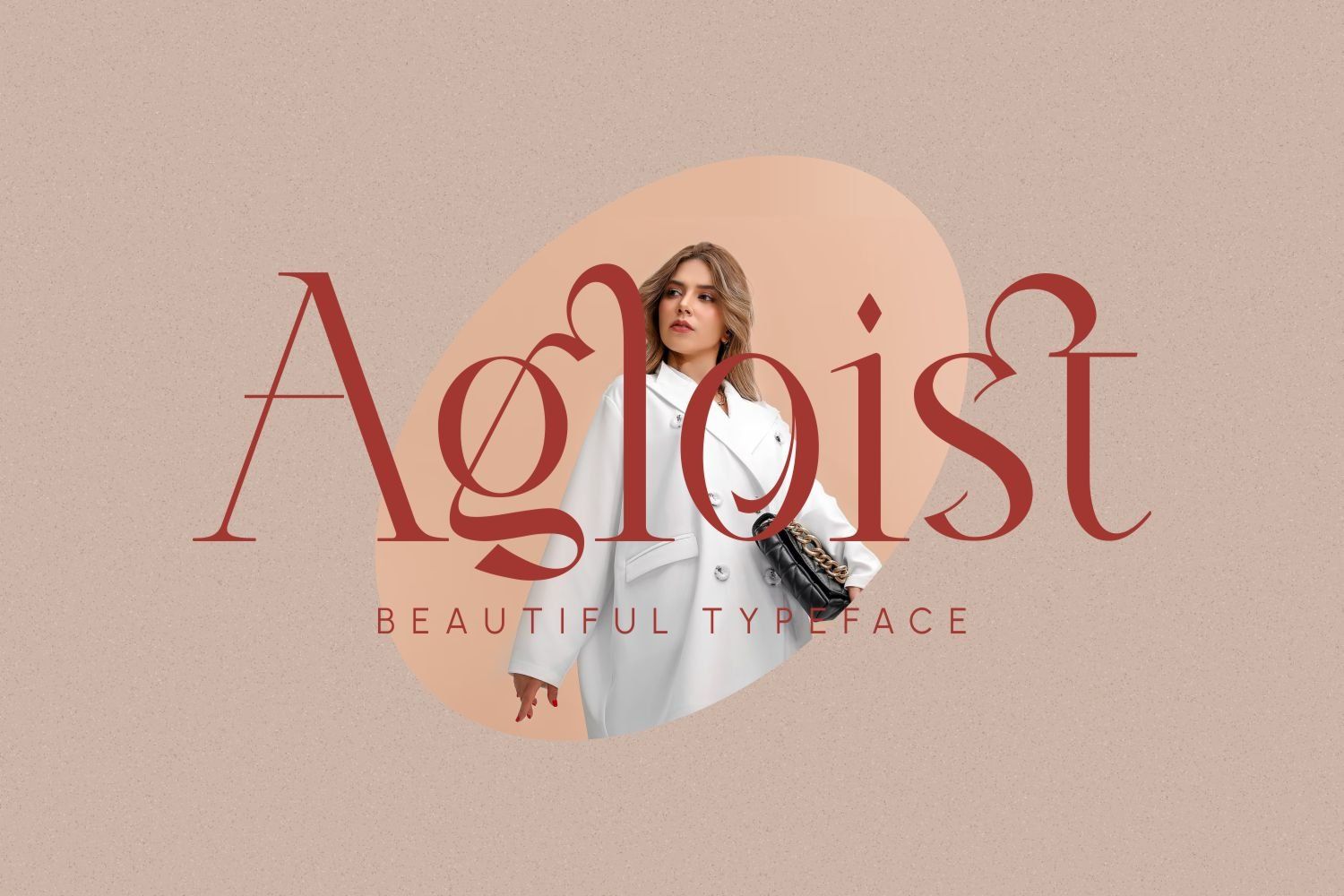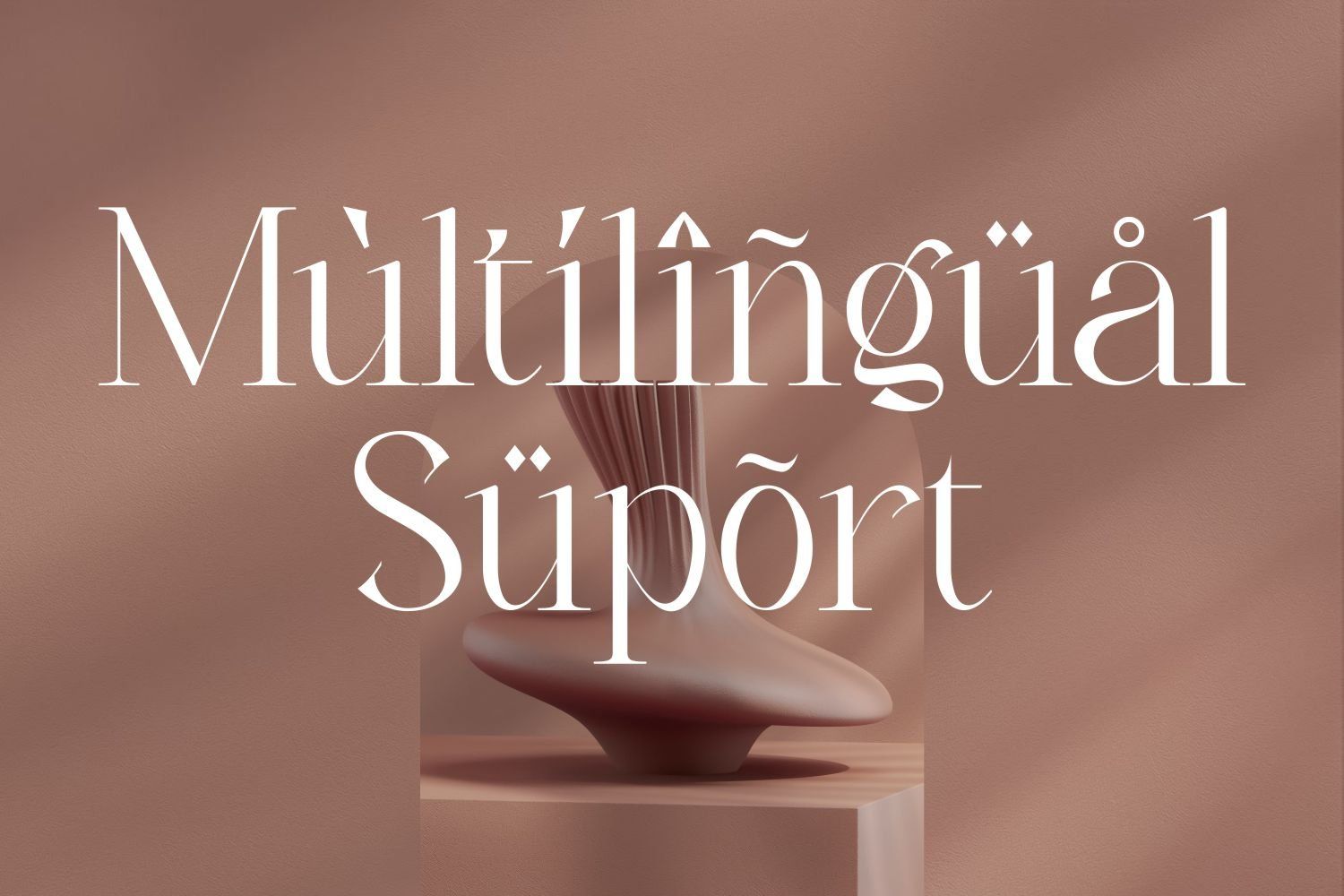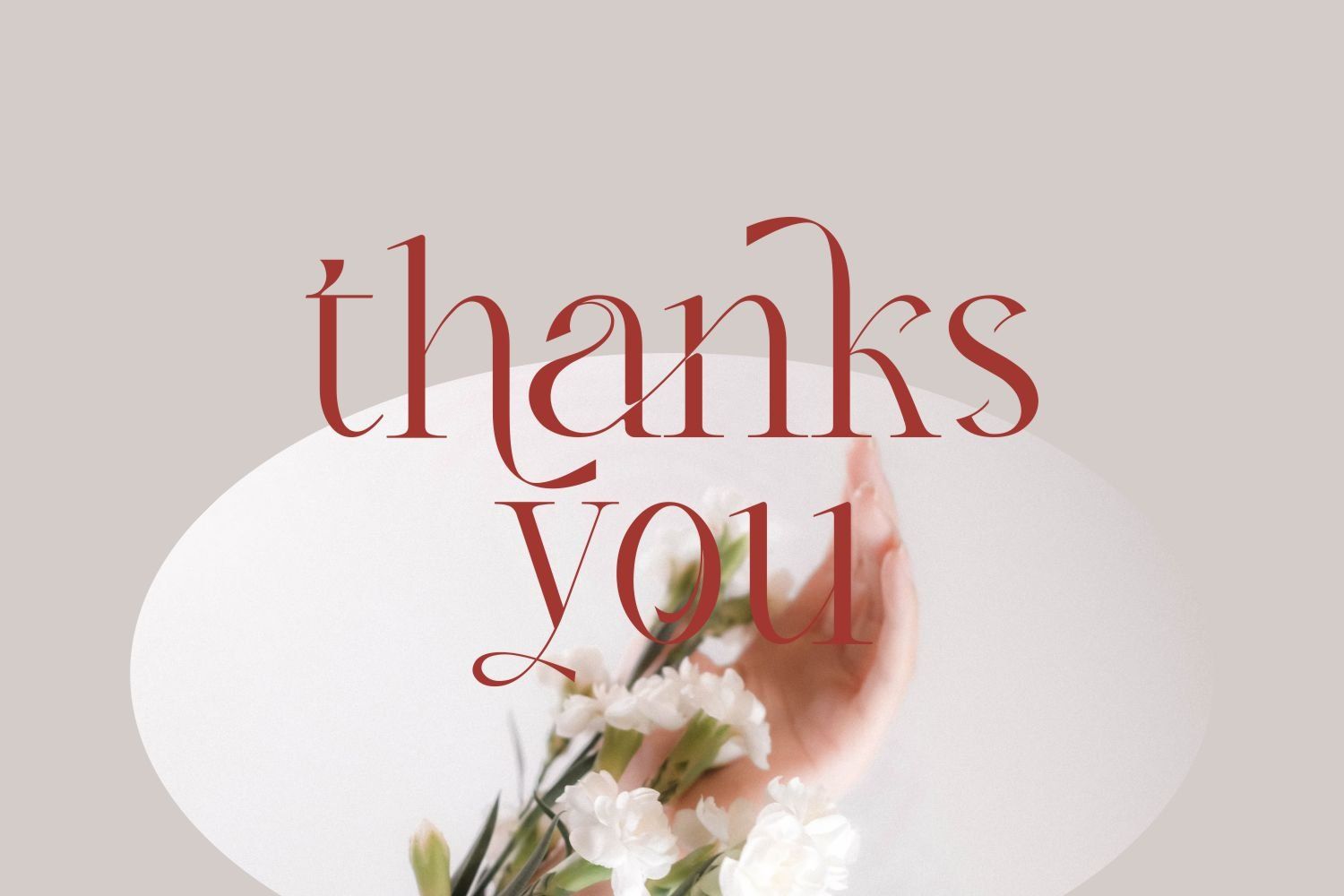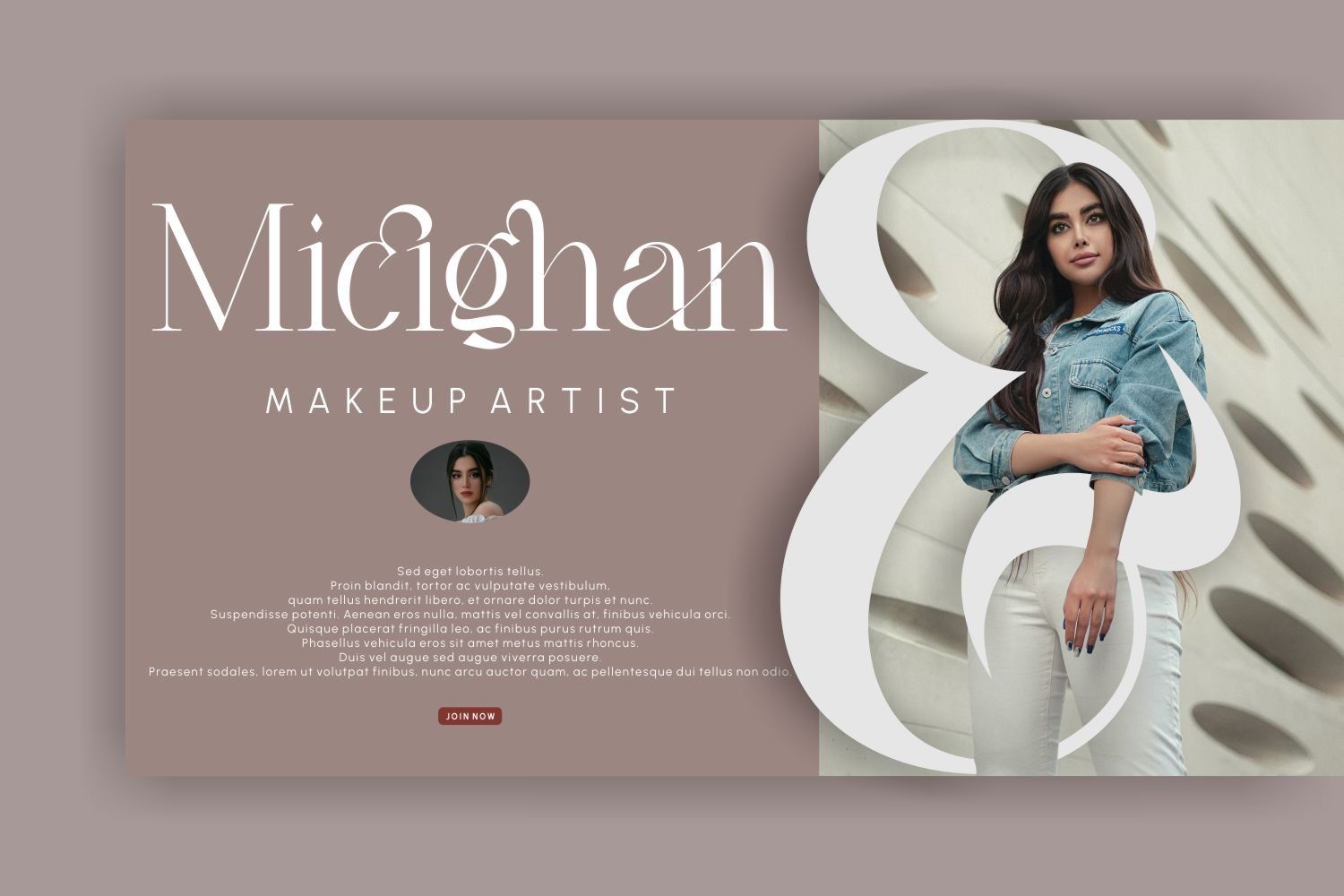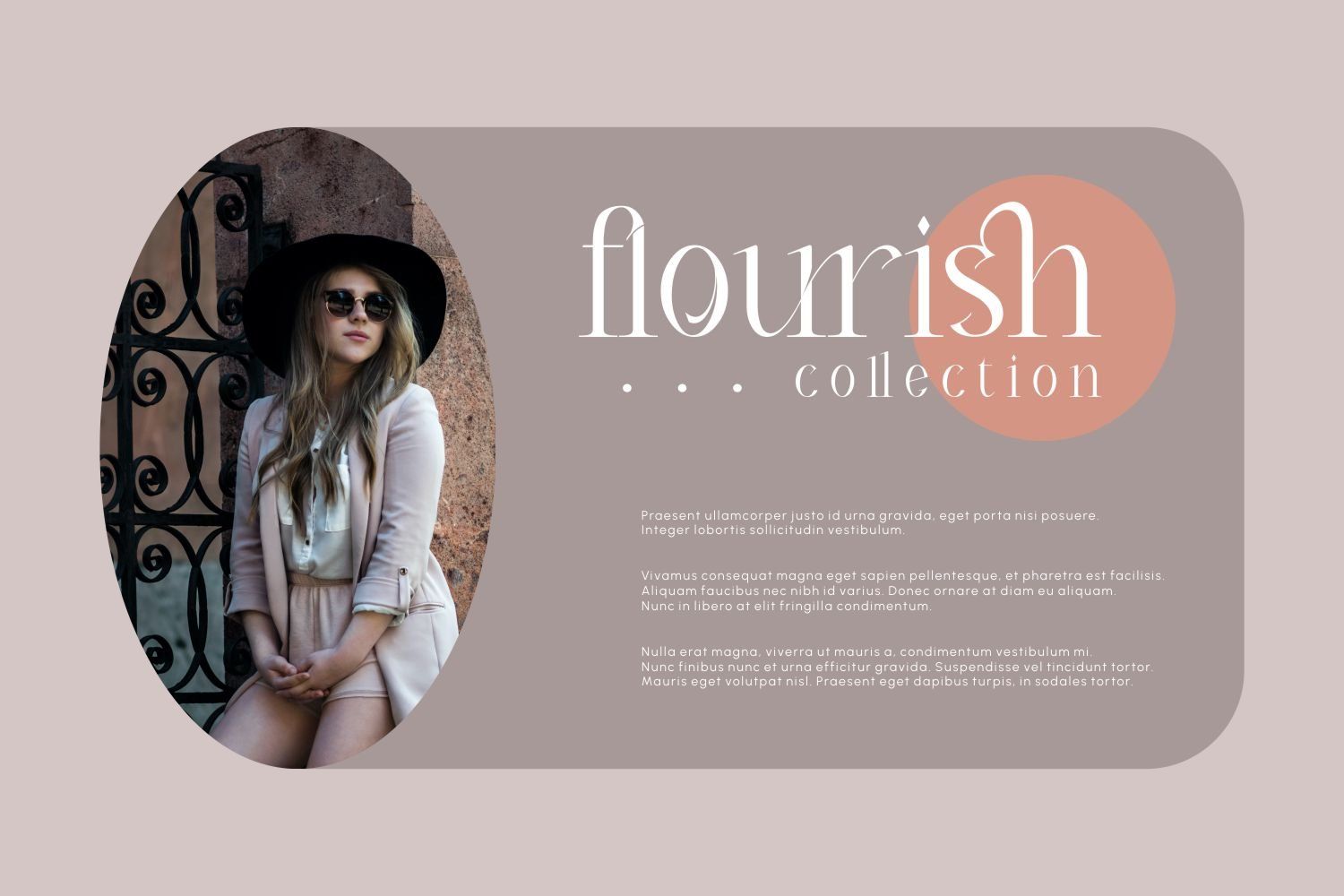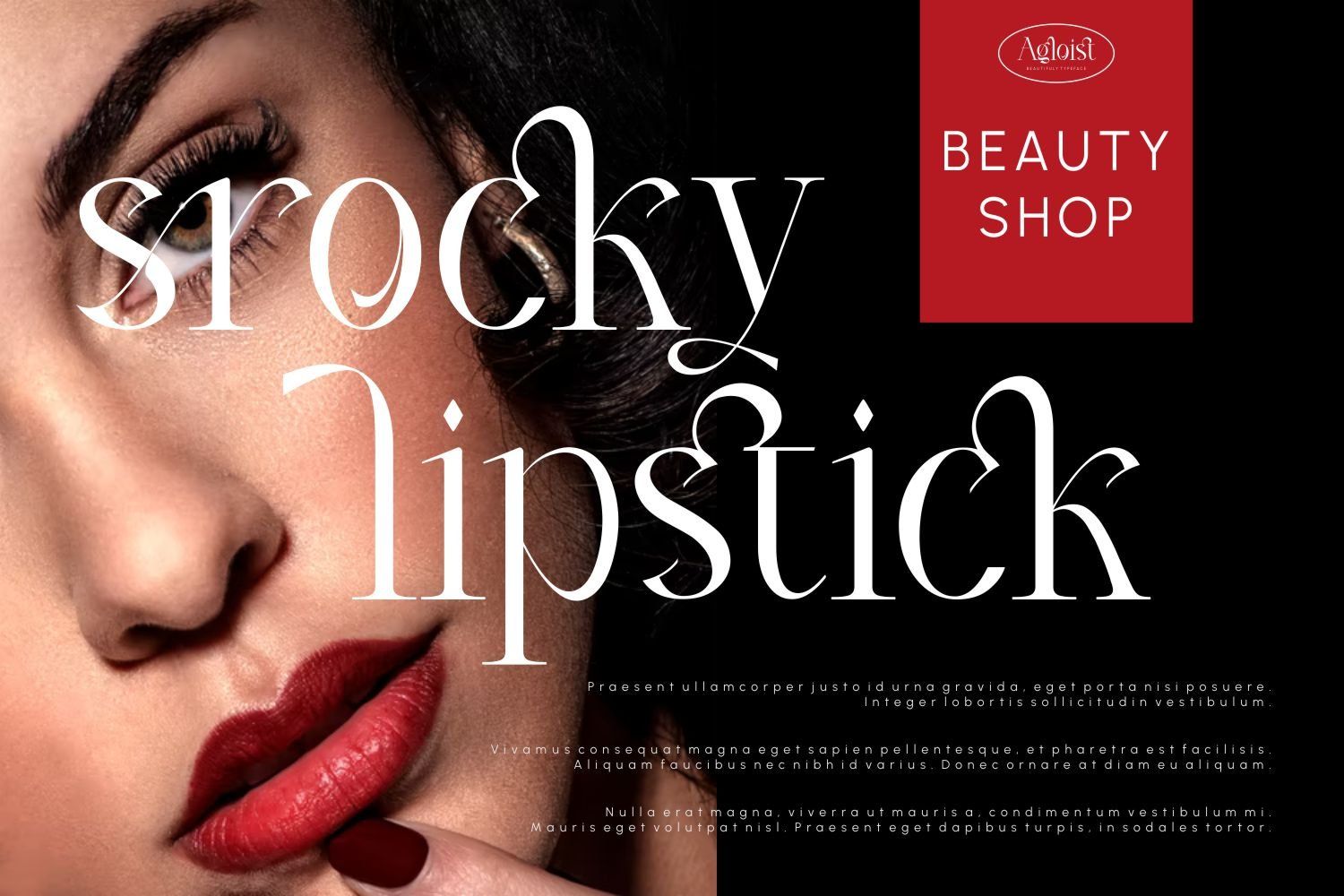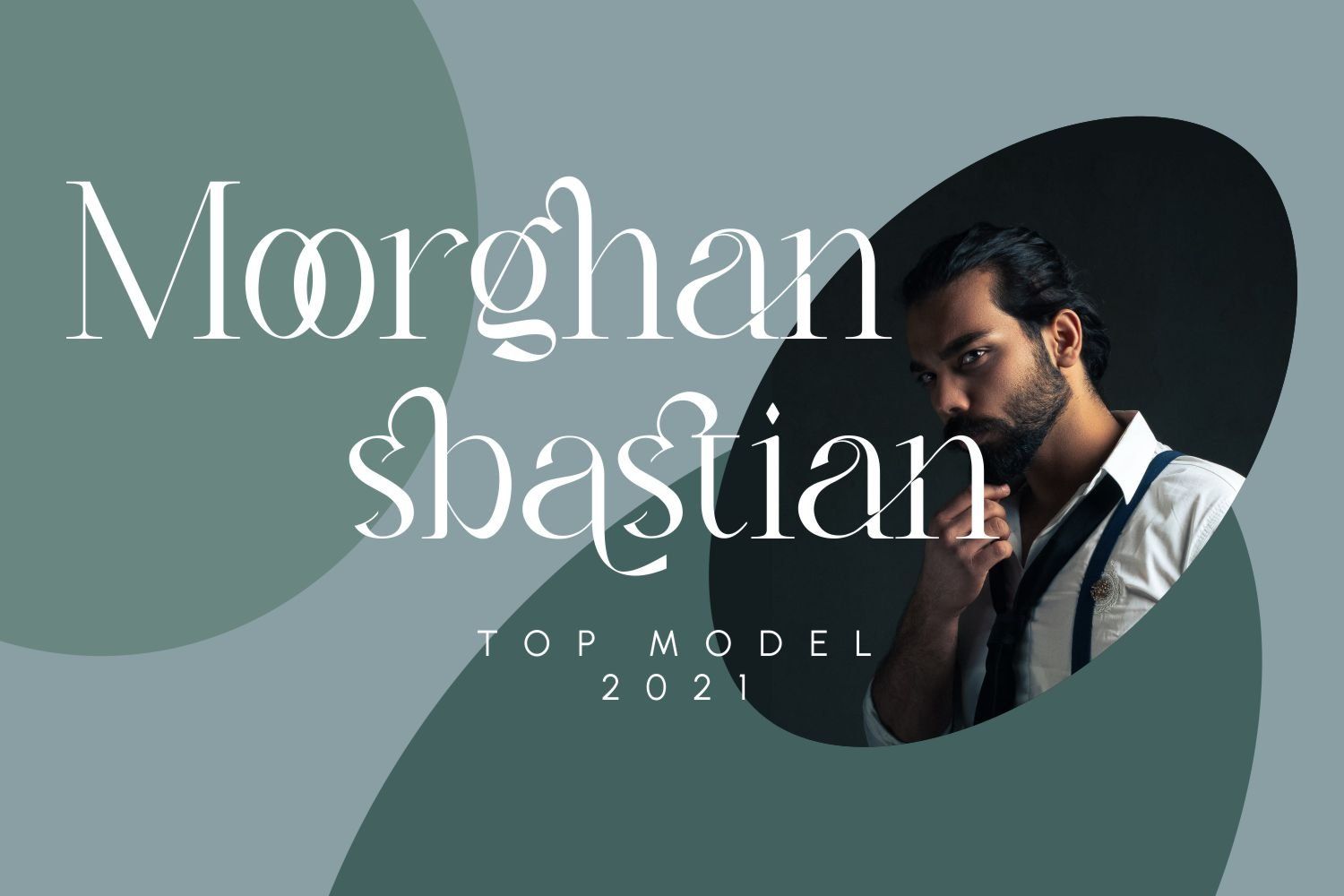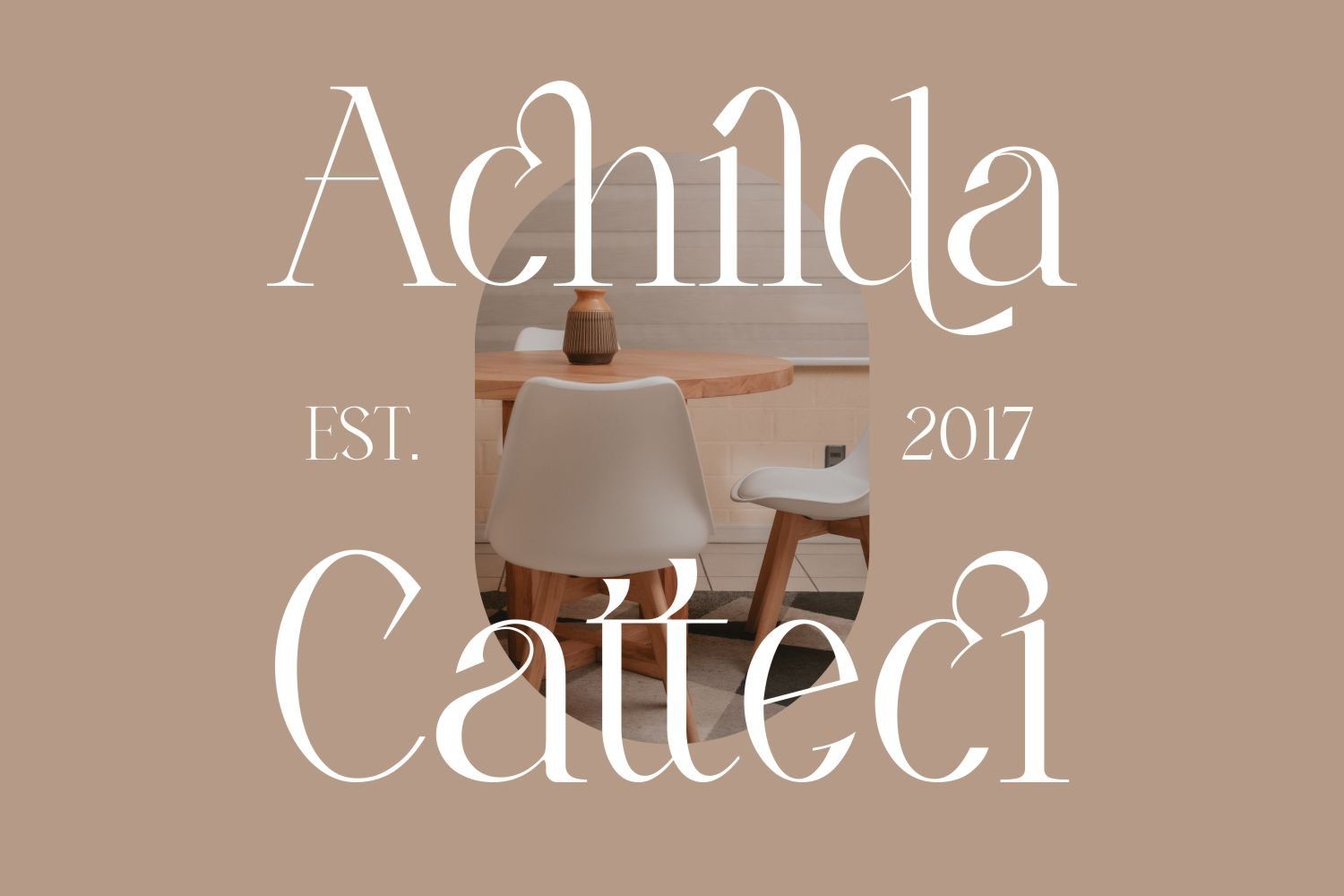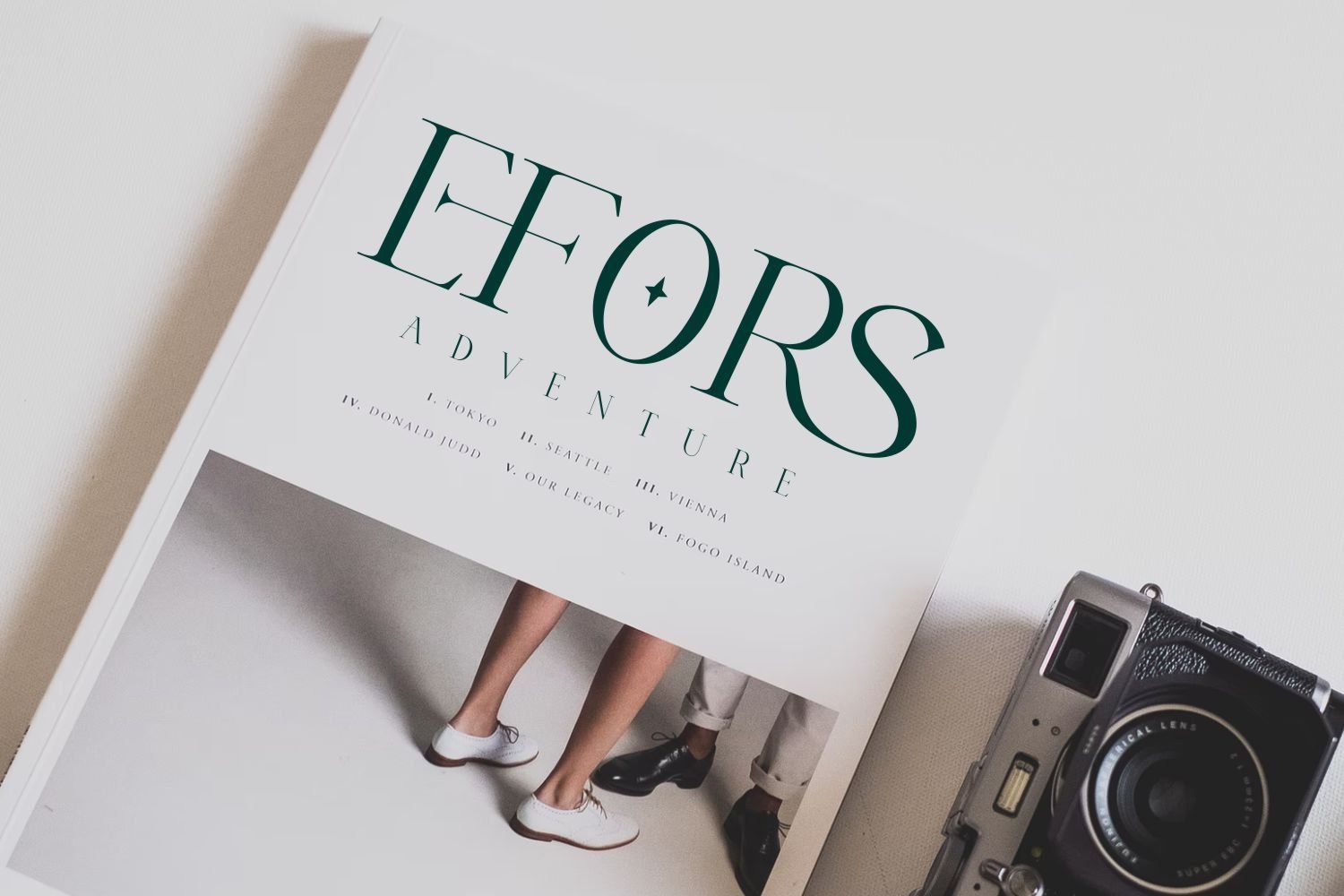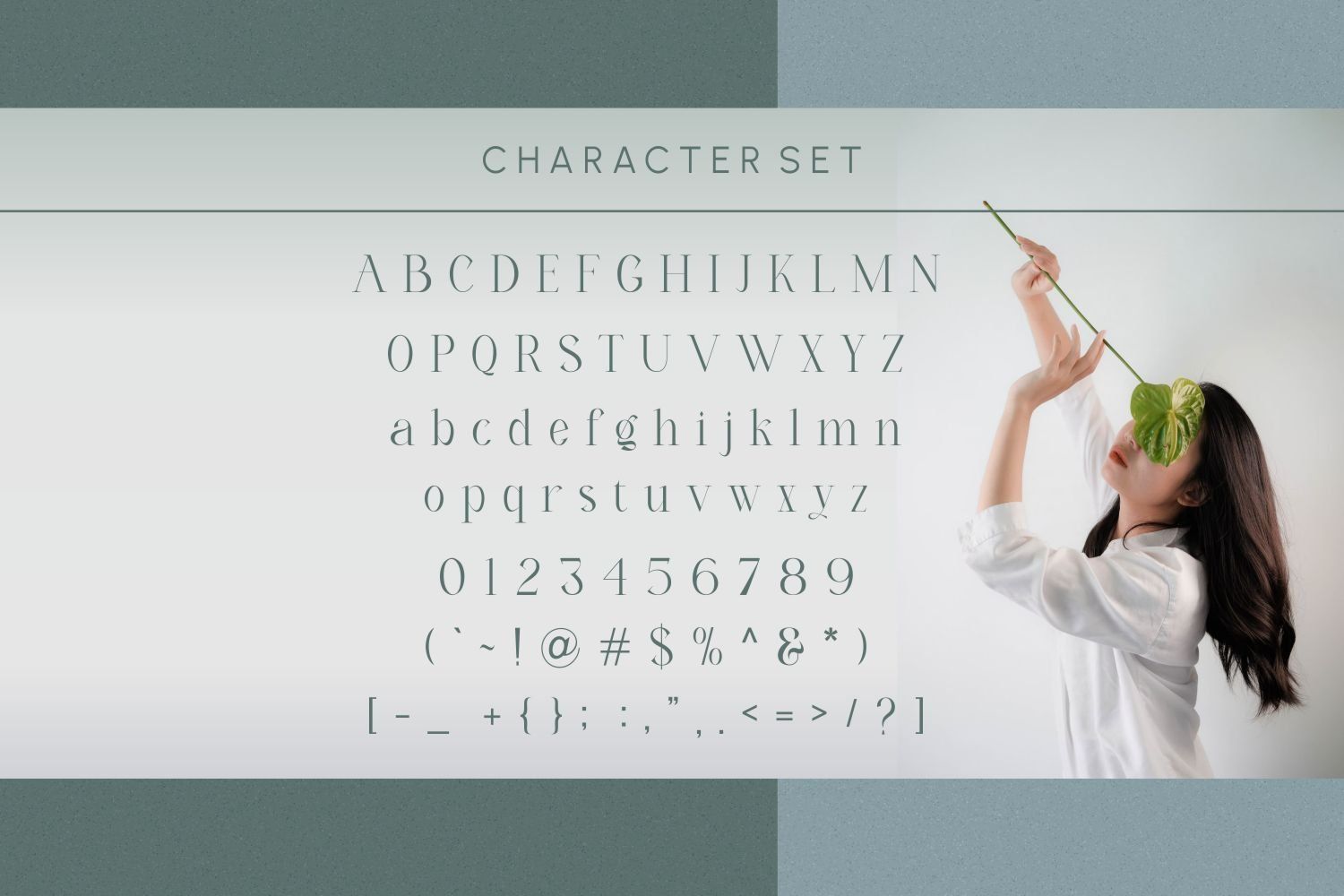
Introducing ''Agloist'' Beautiful Typeface font
Agloist is designed with a very subtle and modern style. by accessing many alternative fonts and very beautiful bindings to make it seem more special.
The Agloist font is perfect for branding projects, fashion, logos, magazine imagery, jewelry, wedding invitations, posters, clothing, packaging, website headers or simply as a stylish text overlay onto any background image.